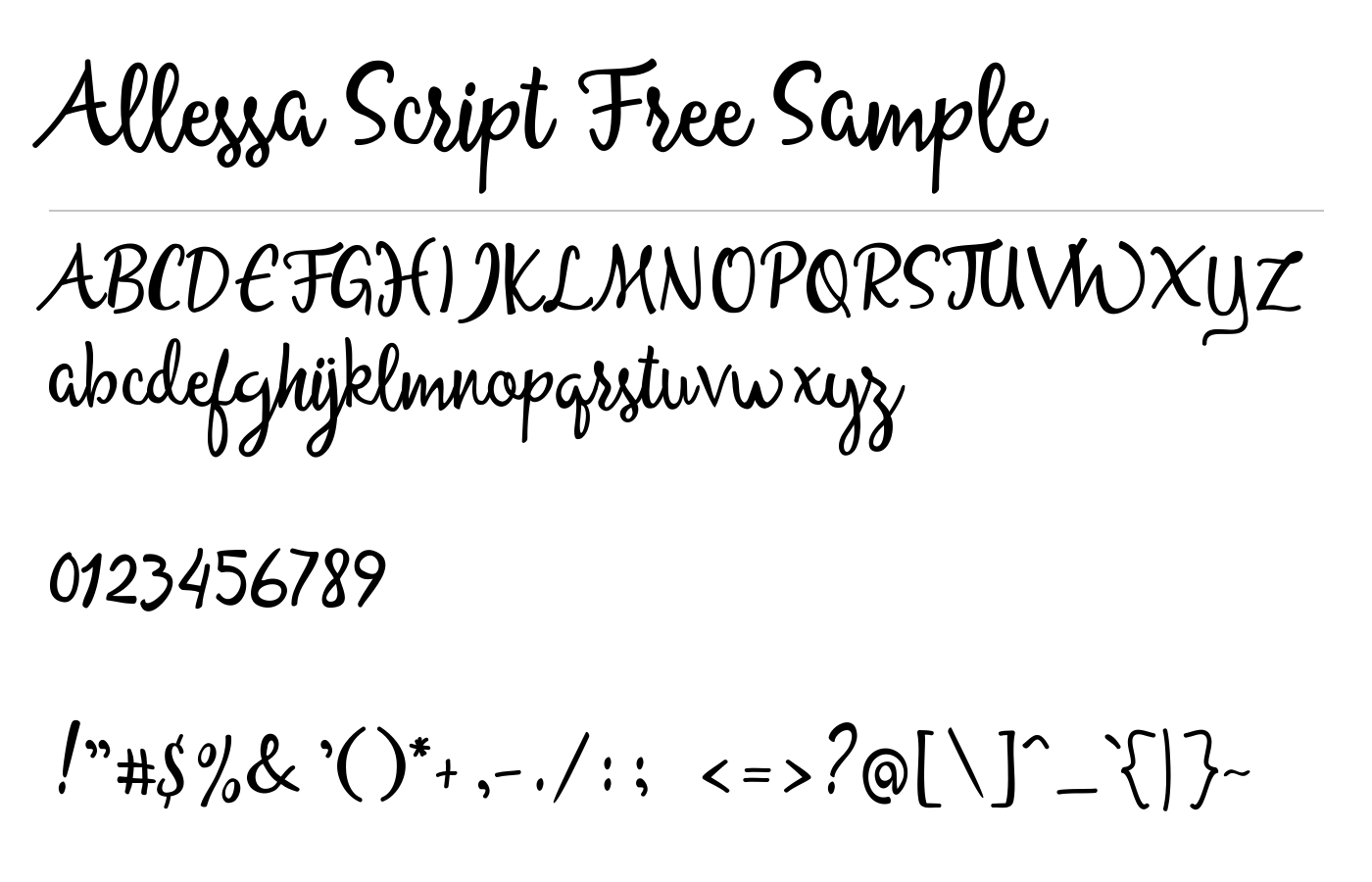
Allessa Script is a casual, handwritten script font with a playful and friendly personality. Its tall, narrow letterforms and slightly uneven strokes give it a natural, personal feel, making it perfect for invitations, branding, and creative projects that want a warm, approachable touch. This font works well in headlines, logos, and any design aiming for a charming, informal style.
Allessa Script Free Sample Font
About Allessa Script Free Sample Font